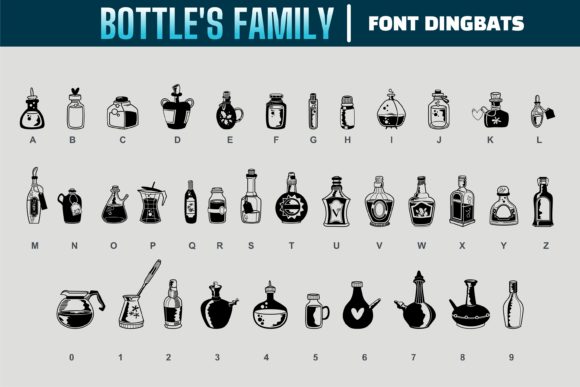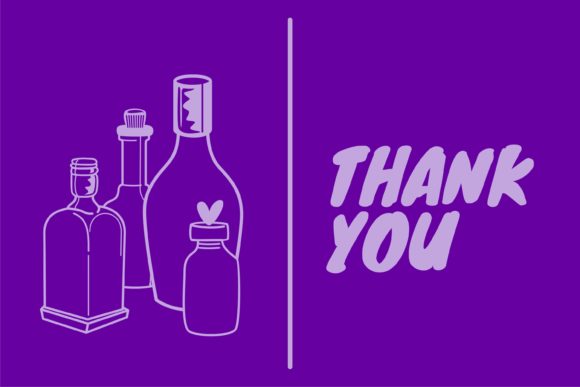
The Ultimate Design Game-Changer: Bottle’s Family Font
I’ll never forget the time I was working on a project for a client who wanted a unique, hand-drawn look. I had spent hours scouring the internet for the perfect font, but nothing seemed quite right. That was until I stumbled upon Bottle’s Family Font. This incredible dingbats font has been a staple in my design library ever since, and I’m excited to share its awesomeness with you! 😊
• ✨ Unique and original design that’s sure to turn heads
• ✅ Highly versatile and adaptable to various design projects
• 💡 Extensive character set, including glyphs and stylistic alternates
• 🎨 Perfect for adding a touch of personality to your designs
While Bottle’s Family Font is an amazing addition to any design library, there are a few things to keep in mind:
• 🤔 Some characters may require manual kerning for optimal results
• ⚠️ Limited language support, primarily suited for English and Western European languages
A Practical Guide to Using Bottle’s Family Font
The Story Behind Bottle’s Family Font
Bottle’s Family Font was created with the intention of providing designers with a unique and versatile dingbats font. The designer aimed to craft a font that would be both fun and functional, with a wide range of applications. The result is a font that’s perfect for adding a touch of personality to any design project.
What type of projects is Bottle’s Family Font best suited for? Bottle’s Family Font is incredibly versatile and can be used for a wide range of projects, from branding and advertising to crafting and DIY tutorials.
Does Bottle’s Family Font support OpenType features? Yes, Bottle’s Family Font supports OpenType features, including glyphs and stylistic alternates, which can be accessed in compatible design software.
Is Bottle’s Family Font suitable for beginners? Absolutely! Bottle’s Family Font is easy to use and navigate, making it perfect for designers of all skill levels.